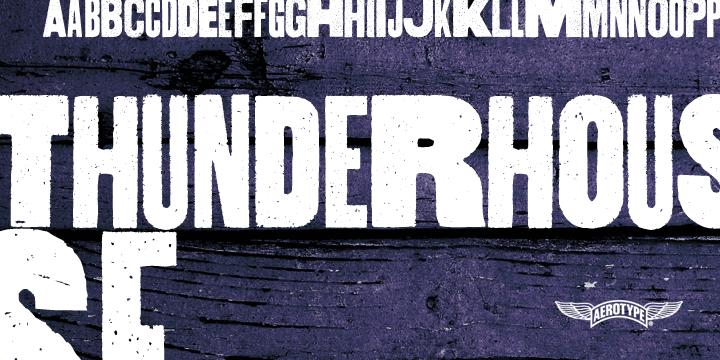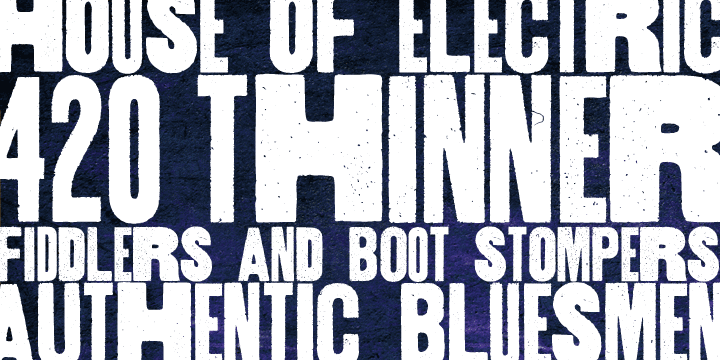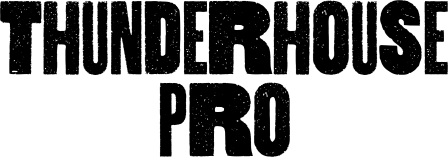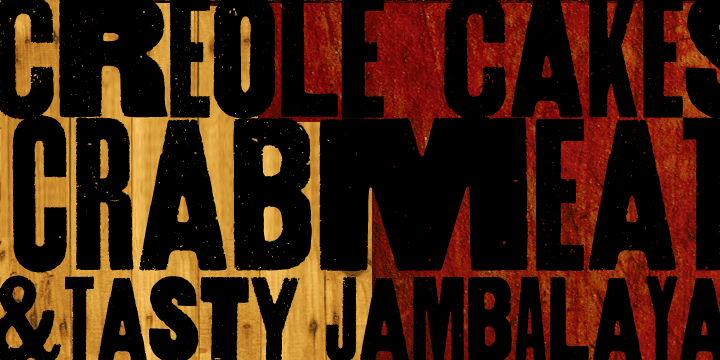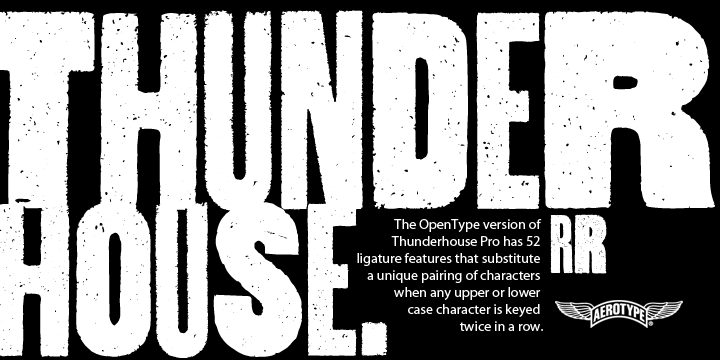
Thunderhouse Pro is a grunge and western font published by Aerotype .
A tasty jambalaya of three different weights, Thunderhouse Pro owes part of its unique flavor and diversity to 52 OpenType ligature features that automatically substitute a unique pairing of characters when any upper or lower case character is keyed twice in a row, as well as support for Eastern European Latin, Baltic, Greek and Turkish.